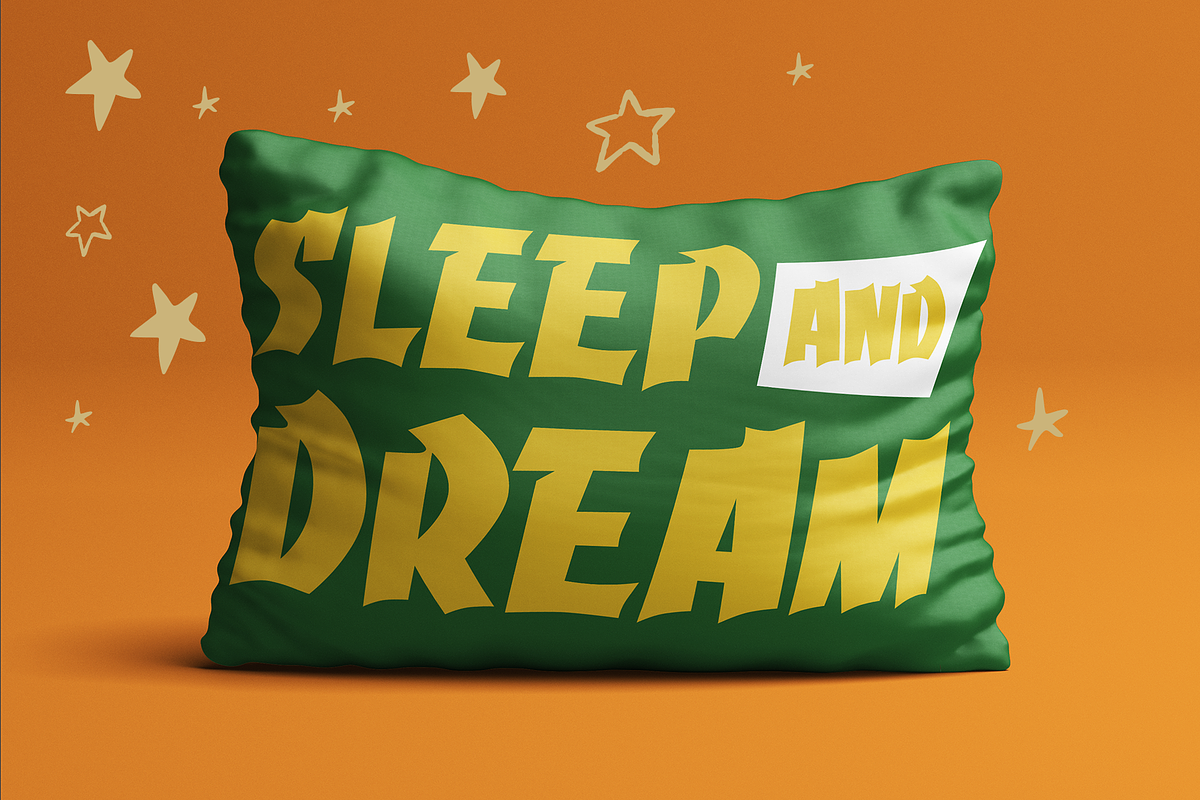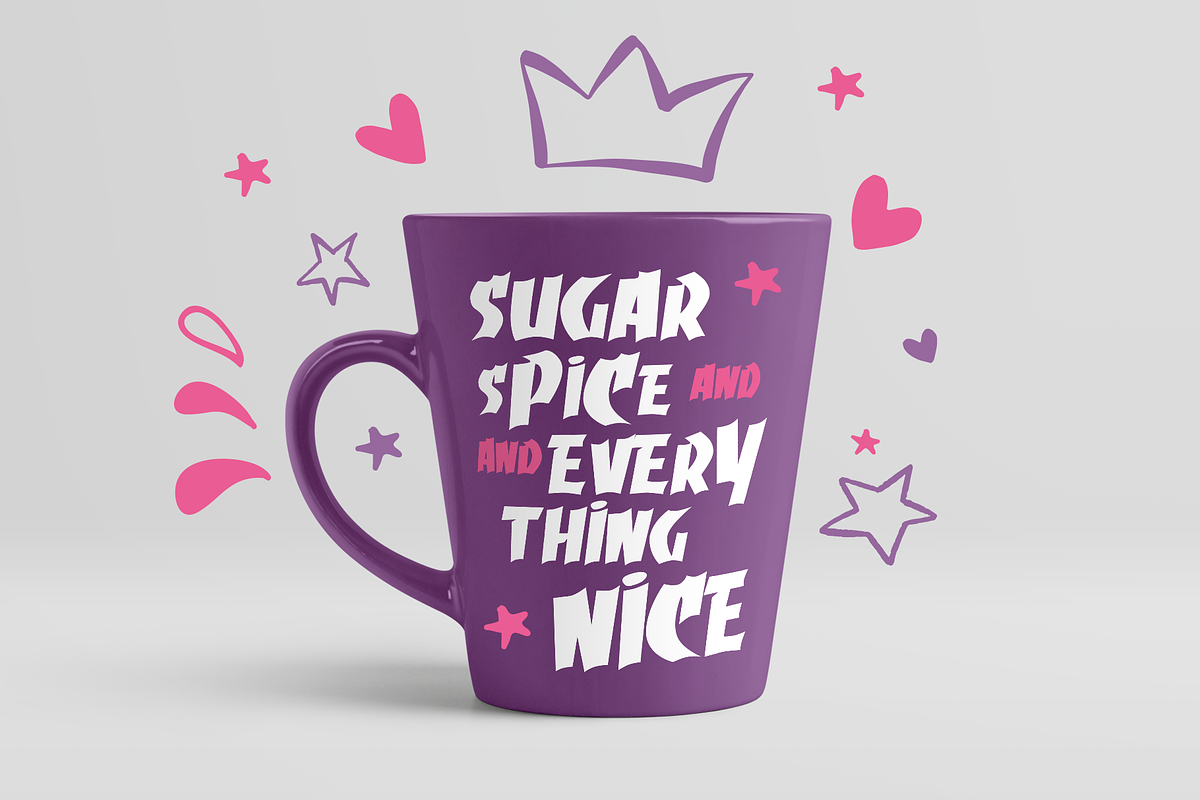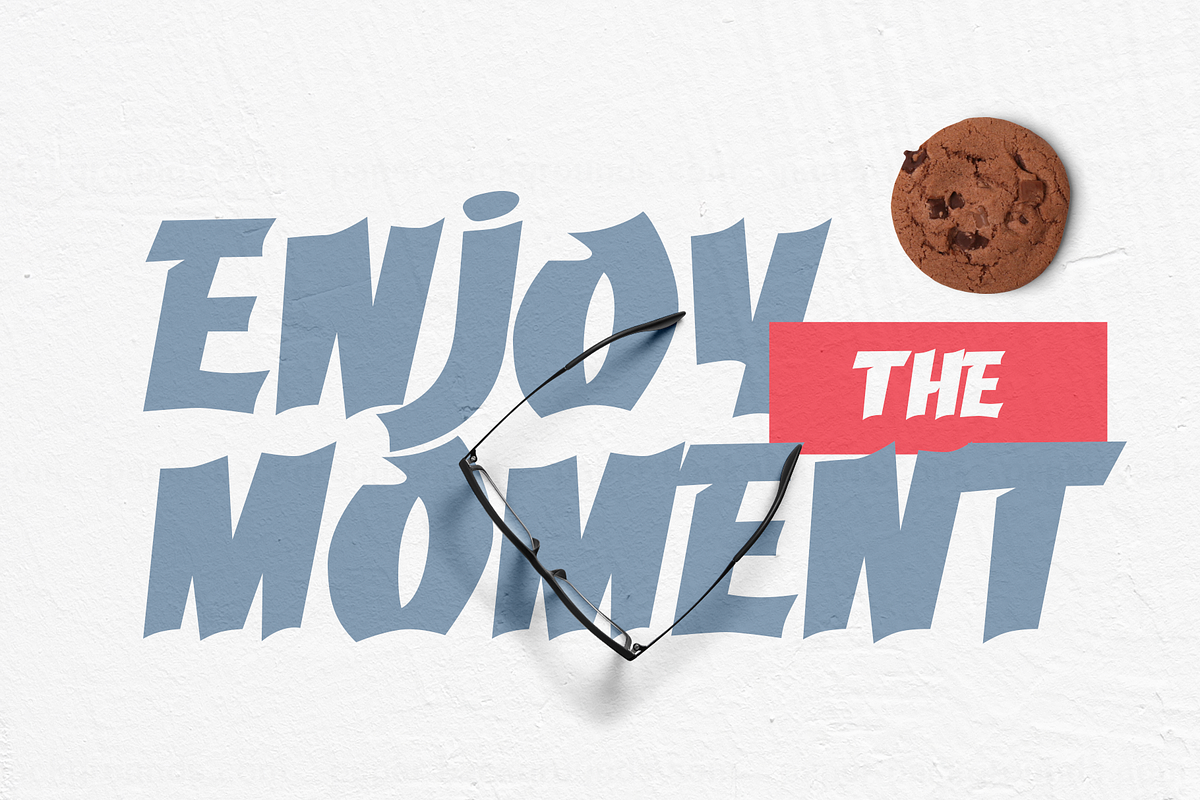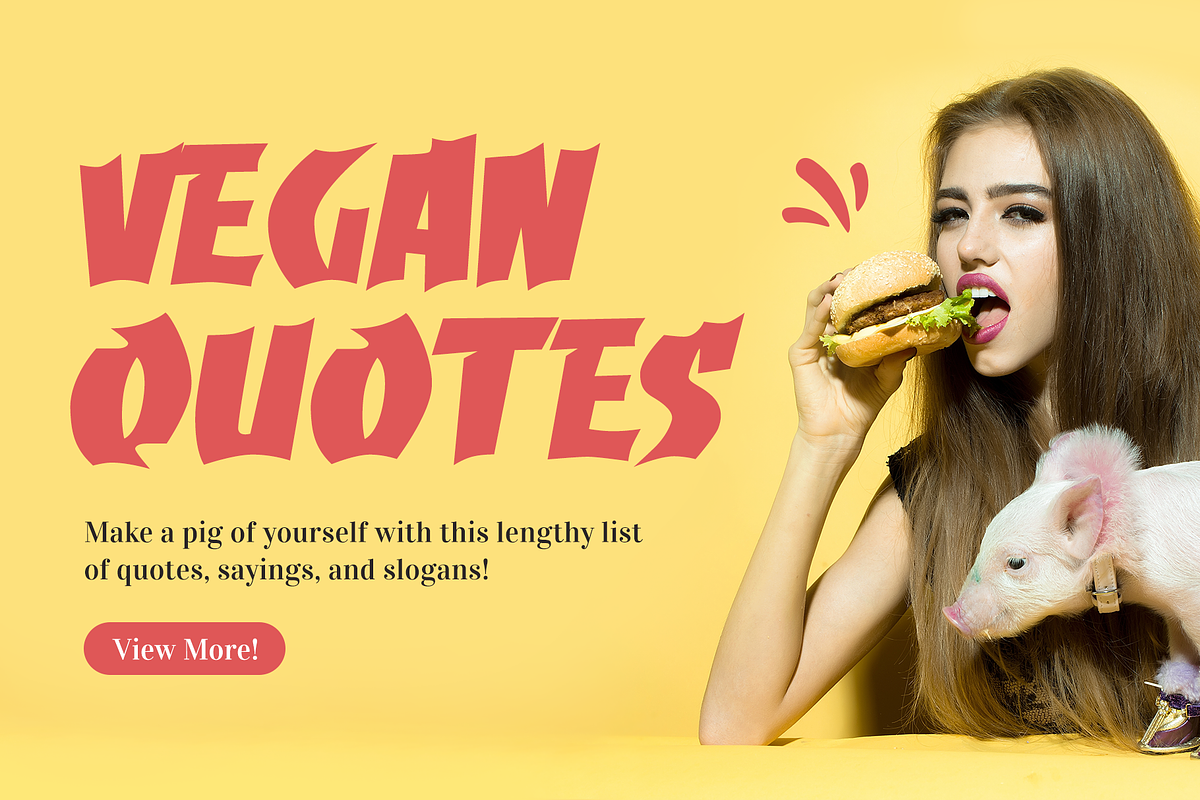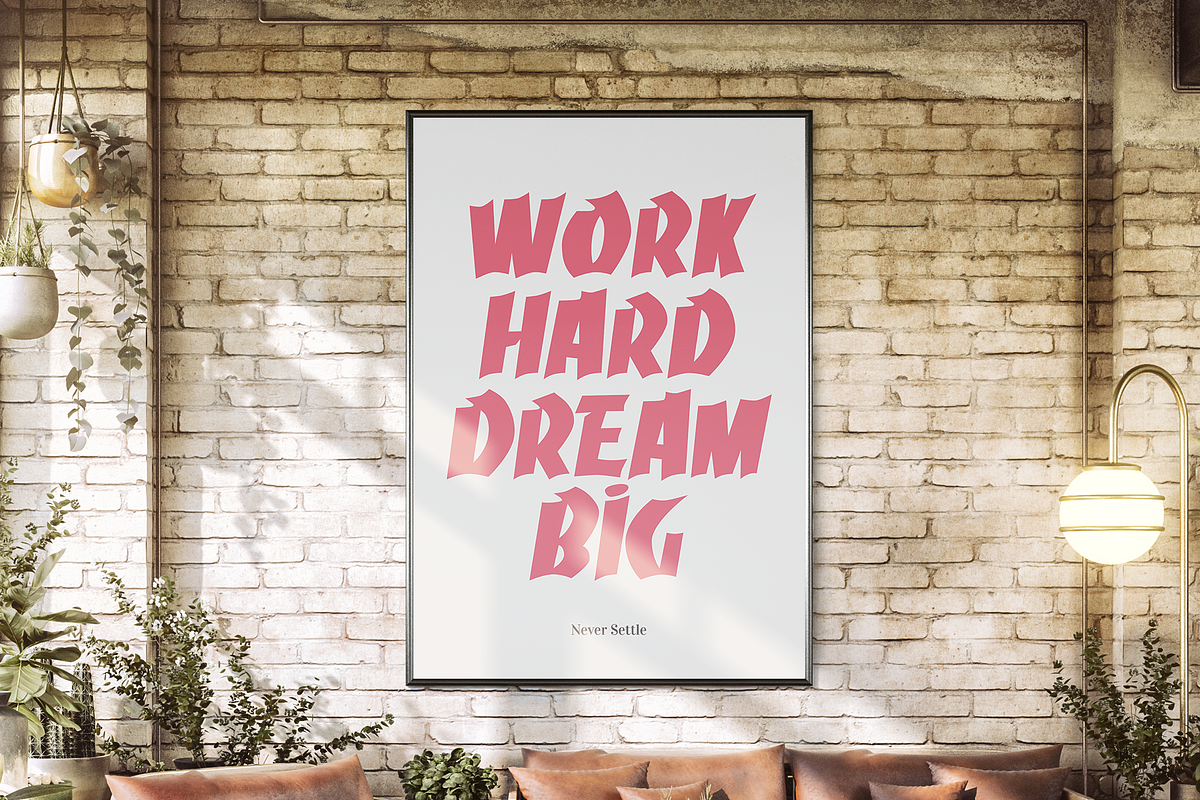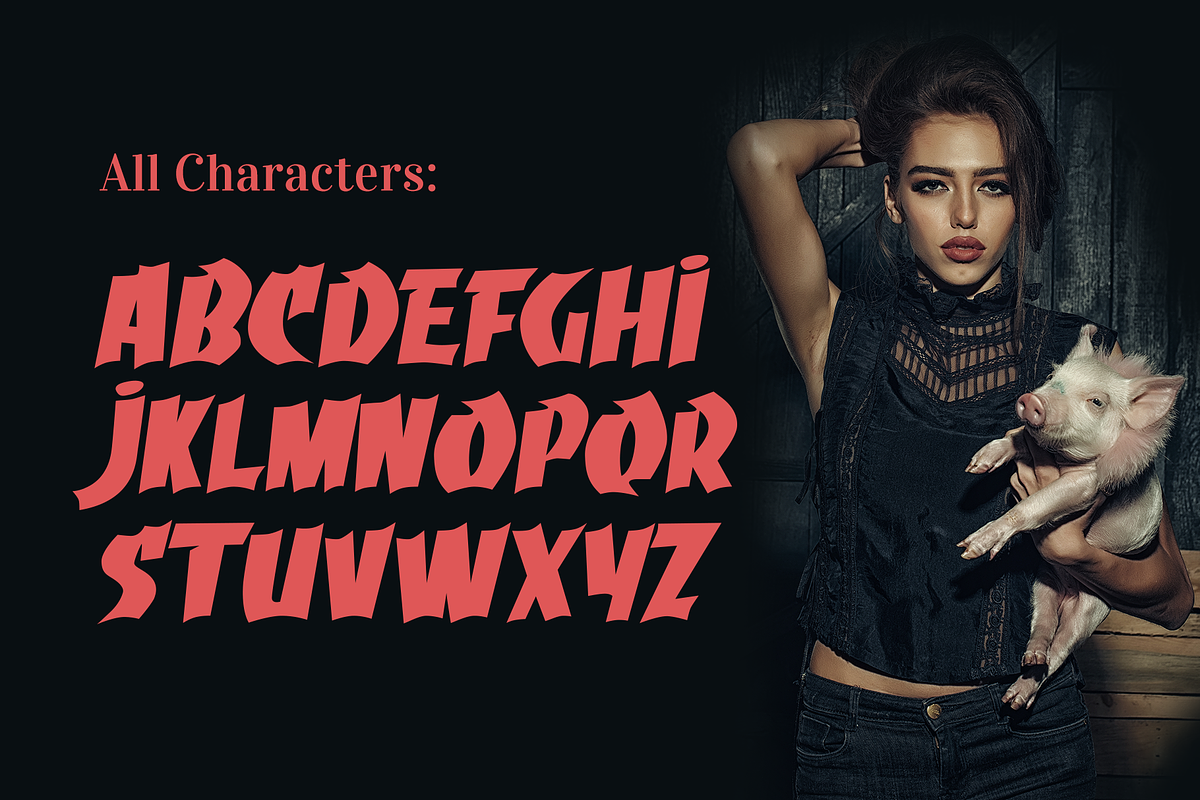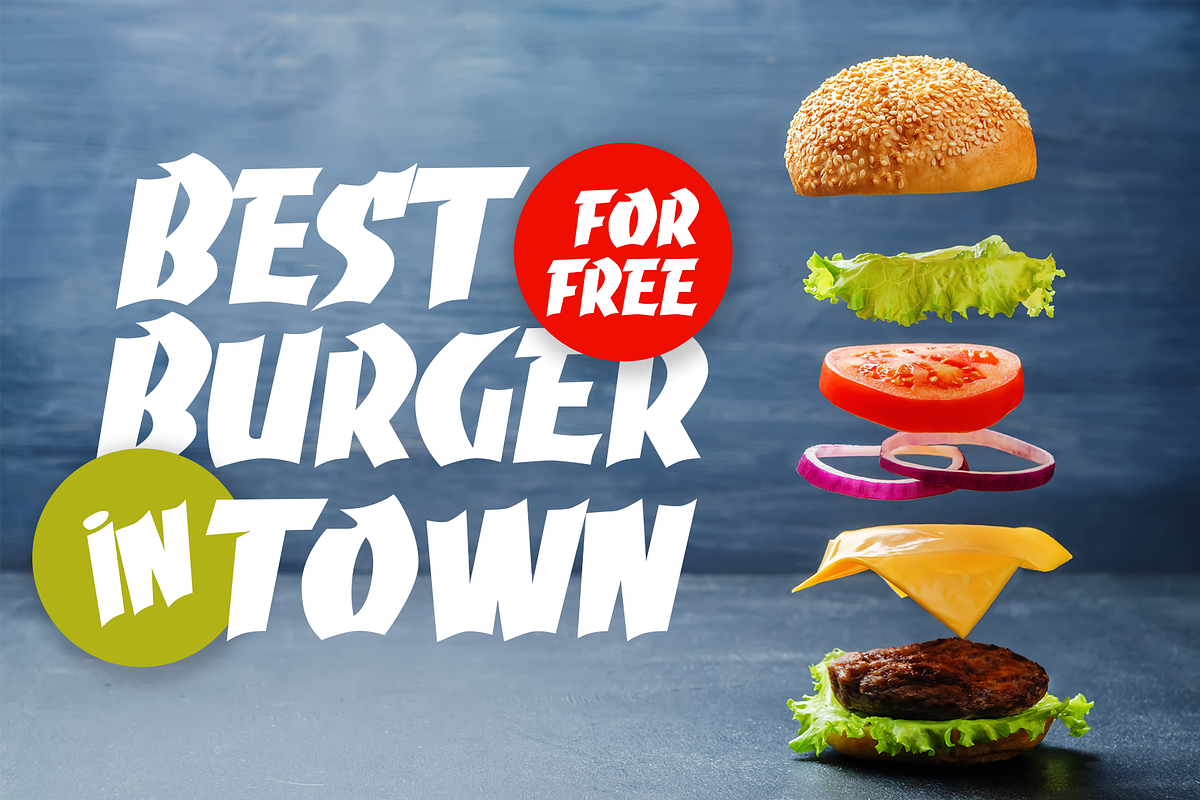
Grumaz - A Free Oinking Display Font
I'm happy to introduce you "Grumaz". A bold and funny display font with a twist. It's a massive all-caps, positively bold yet quite good-humored, suitable for all of your fun projects. The options that "Grumaz" provide are only limited by your imagination.